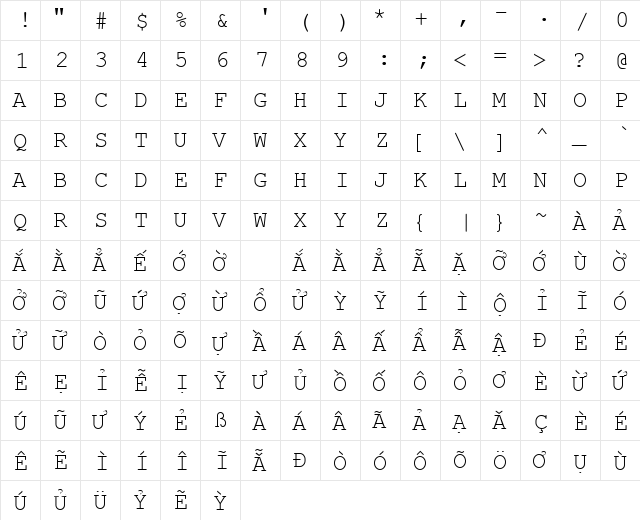
VPS Courier Hoa Normal
Design Context for VPS Courier Hoa Typeface
VPS Courier Hoa uses fixed-width spacing throughout, giving it the structured, systematic character associated with coding environments and technical documentation.
Well-suited to data-driven dashboards, coding tutorials, and any design that wants to reference the world of programming.
Pro Tip: Use VPS Courier Hoa with slightly increased line-height for extended reading — fixed-width spacing can feel dense in longer passages without extra breathing room.